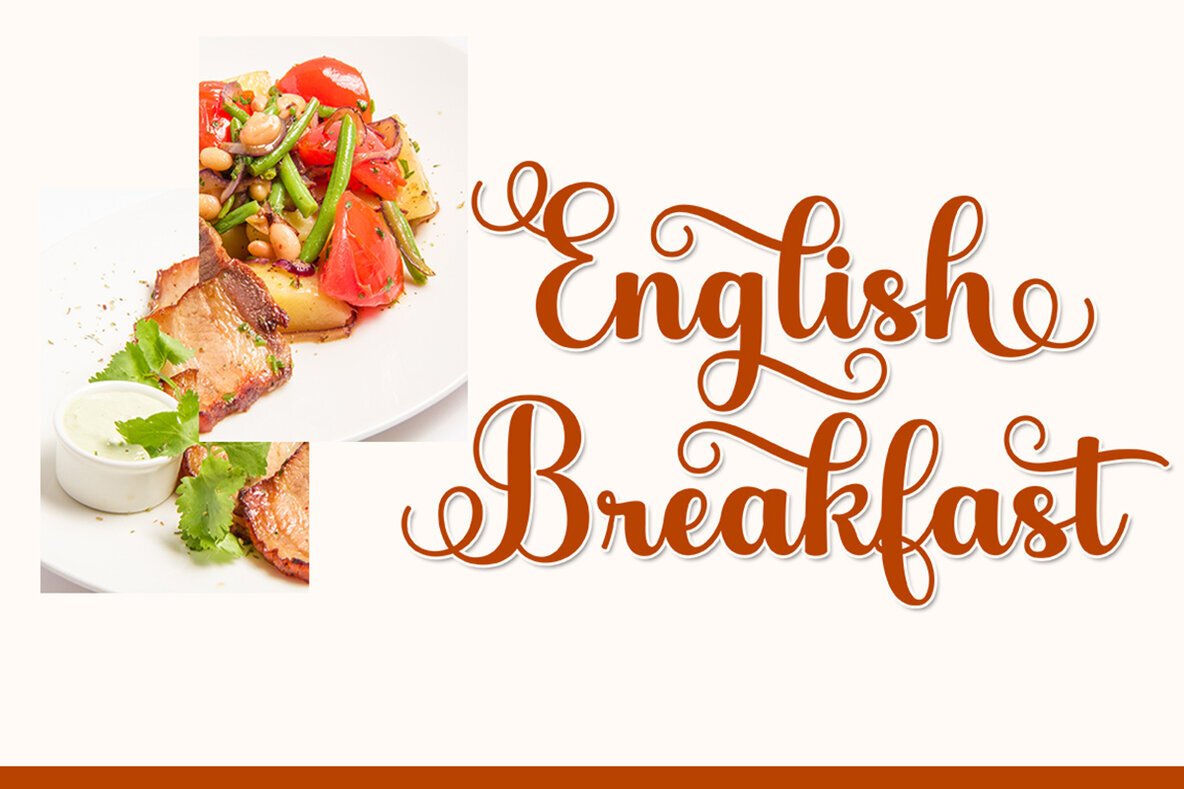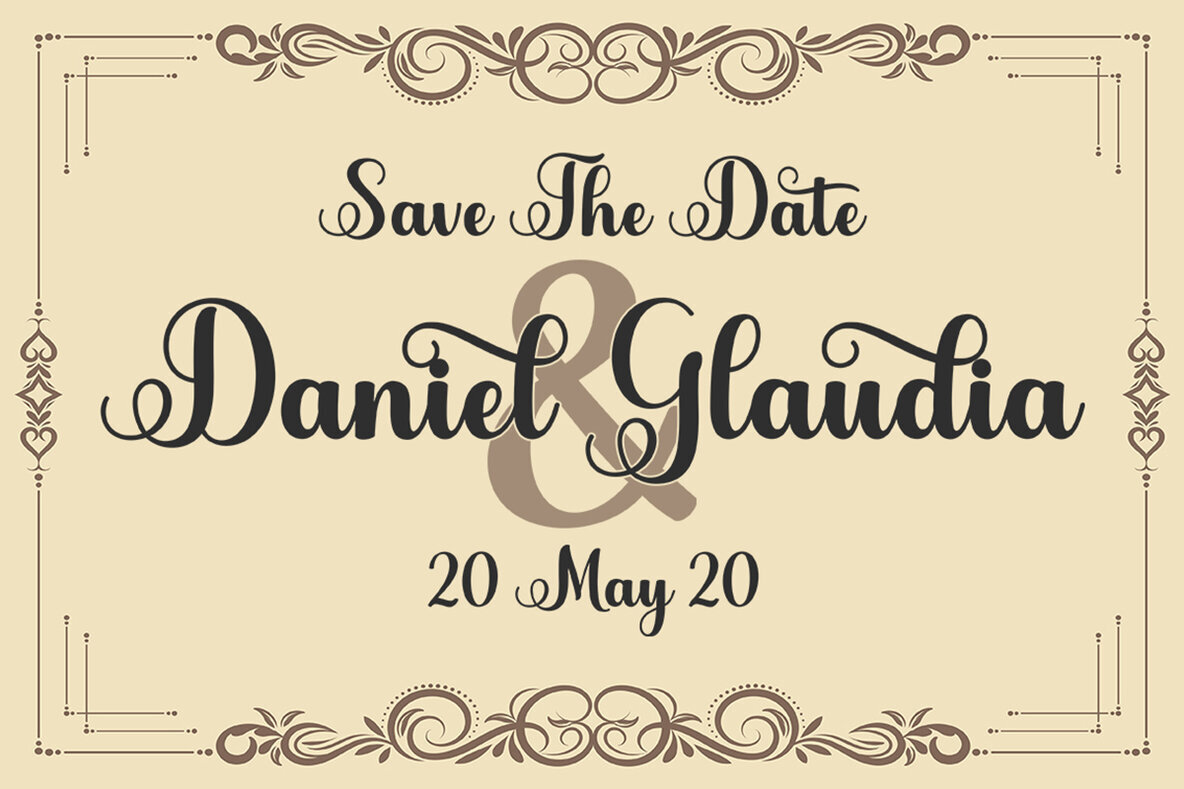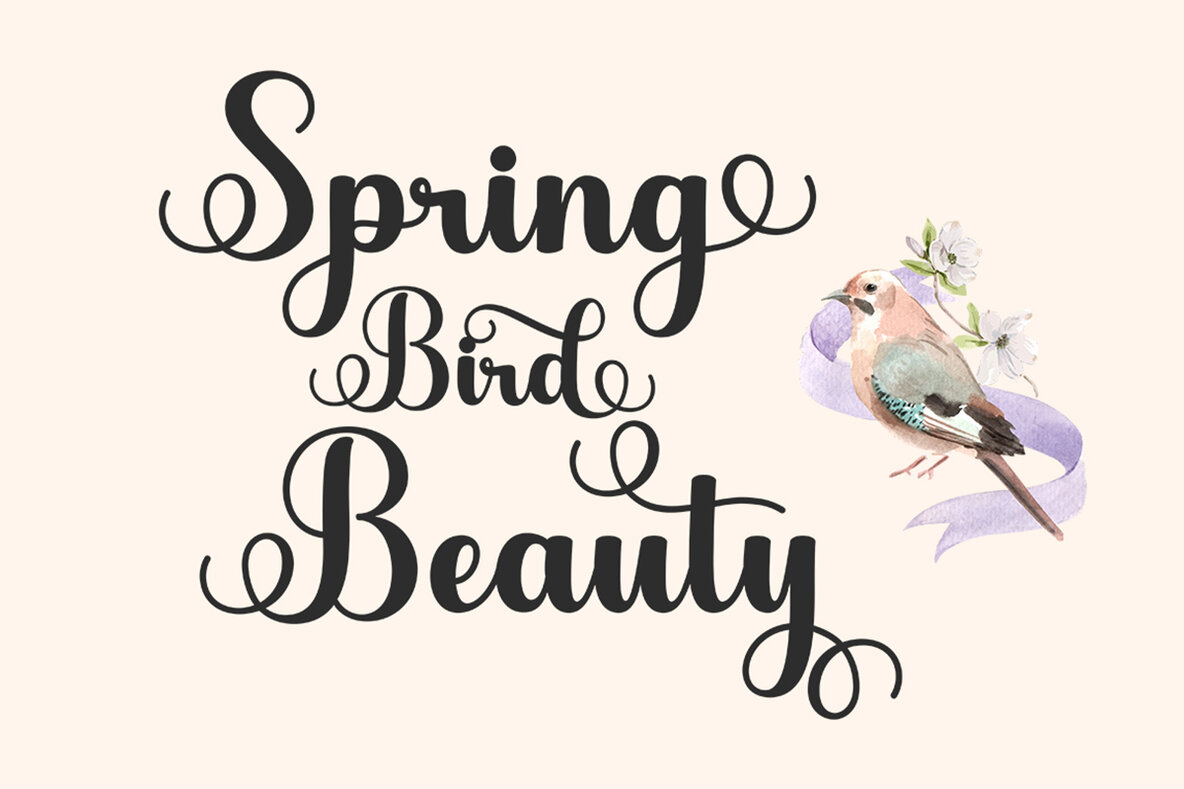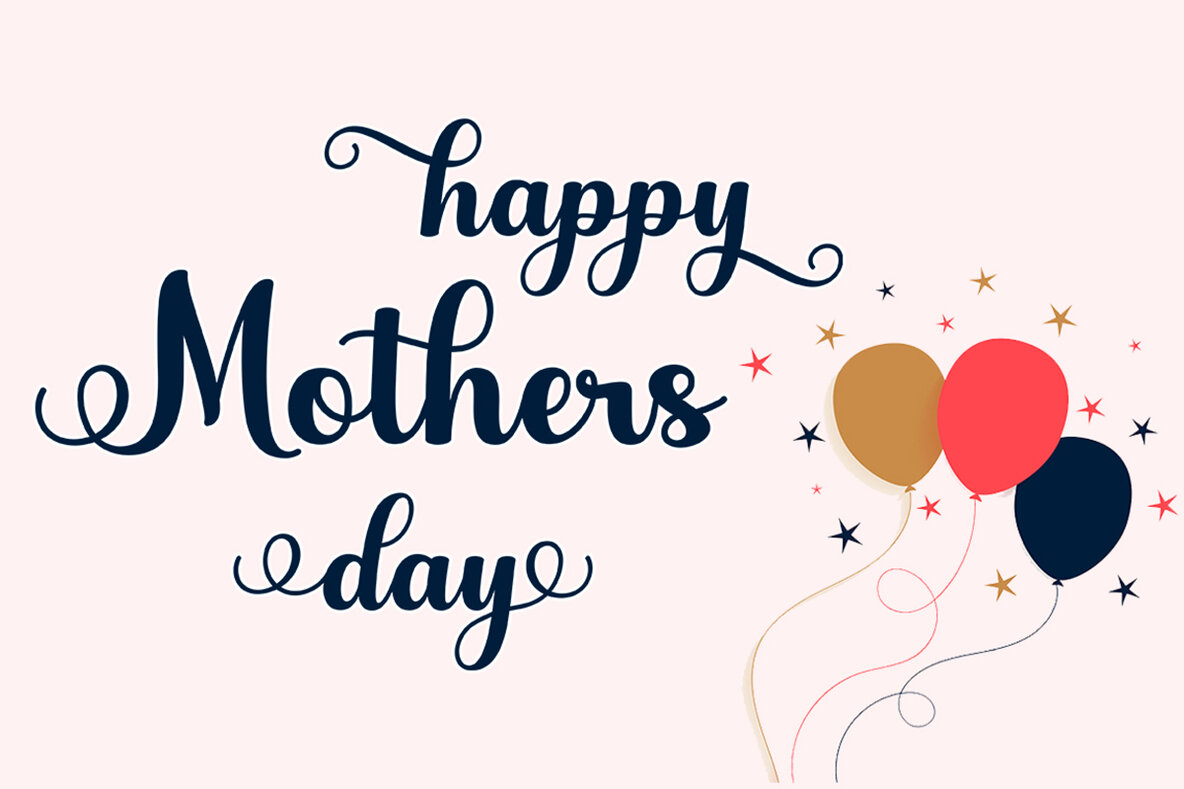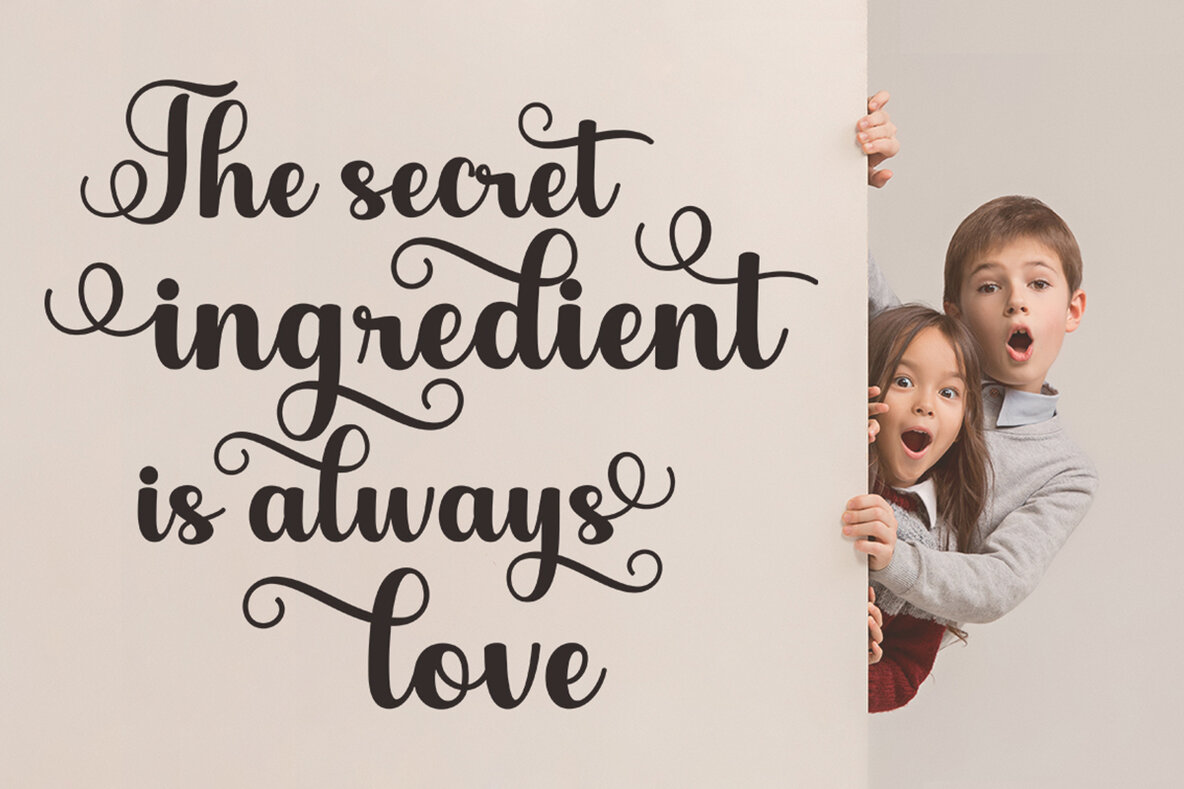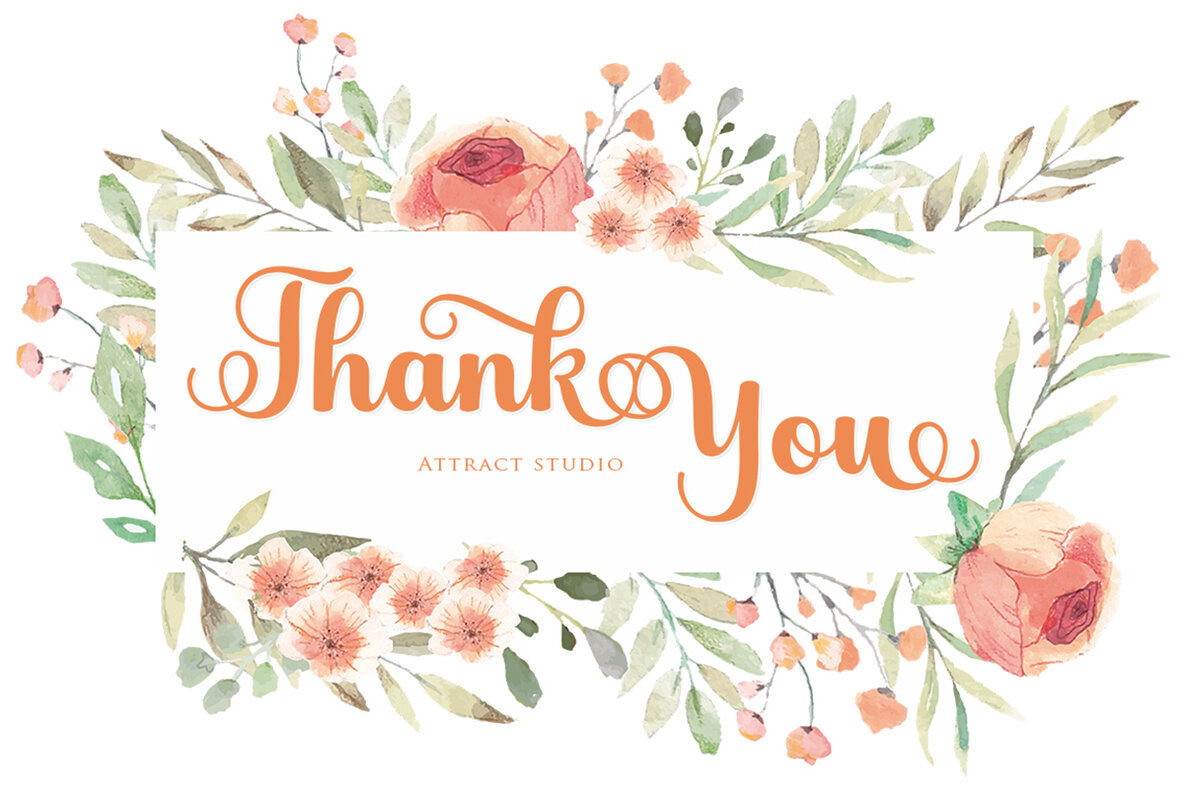
Abiyah Script Font
Delight in the sophisticated charm of Abiyah Script, a modern calligraphy design that captivates with its grace. Featuring both Regular and Italic styles, this font stands out with its exquisite swashes, making it a versatile tool for varied design needs. Whether you are crafting a logo, creating product packaging, or designing wedding invitations, Abiyah Script lends an air of sophistication. Seamlessly transition from elegant branding to captivating headlines, or even signature book covers and quotes. This font is equipped with PUA Unicode, granting easy access to extra characters without specialized software. Mac users can leverage Font Book, while Windows users can utilize Character Map for seamless character integration in any text application.Abiyah Script: Elegant Calligraphy With Modern Flair